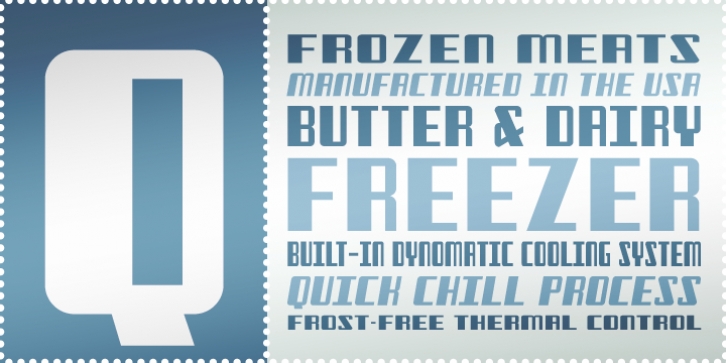
Freezer comes right from, you guessed it, a freezer!
Inspired by the chrome lettering inside and out that lets the modern homemaker know where to put the butter, the vegetables, and meats, this vintage typeface has a clean 1930s feel and comes in a host of widths.